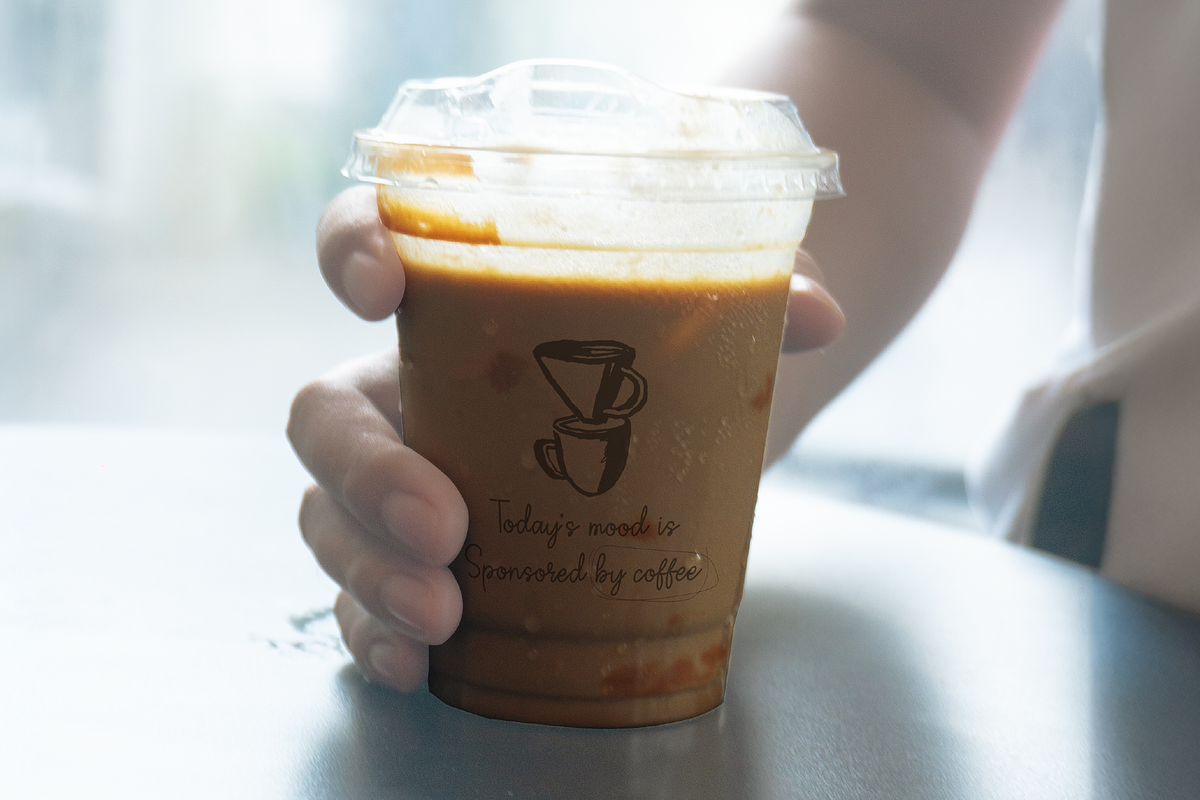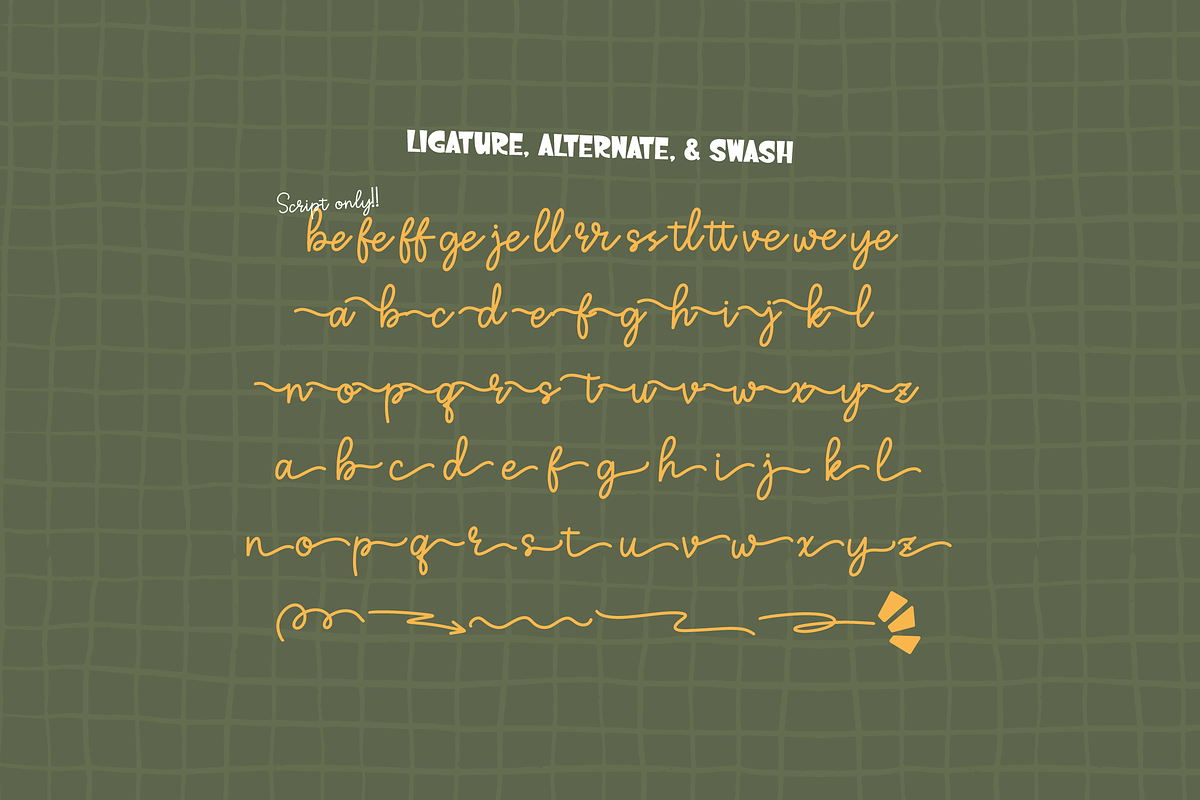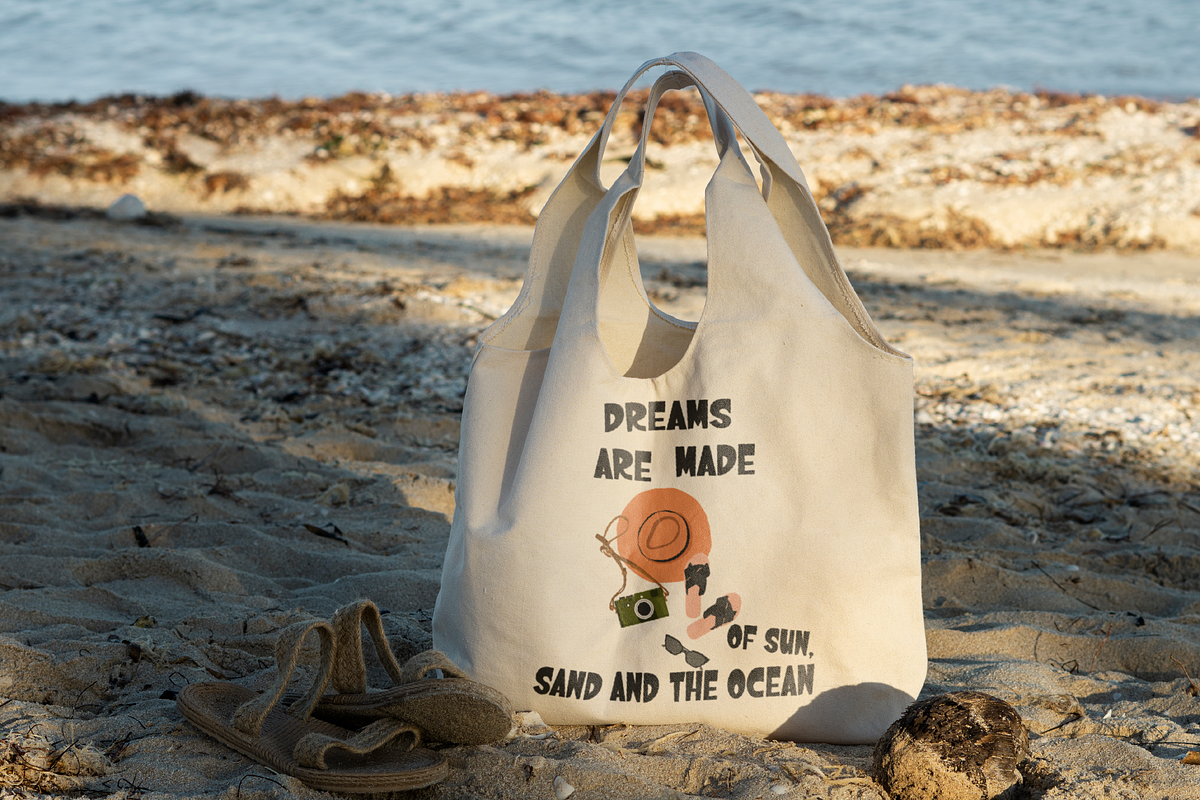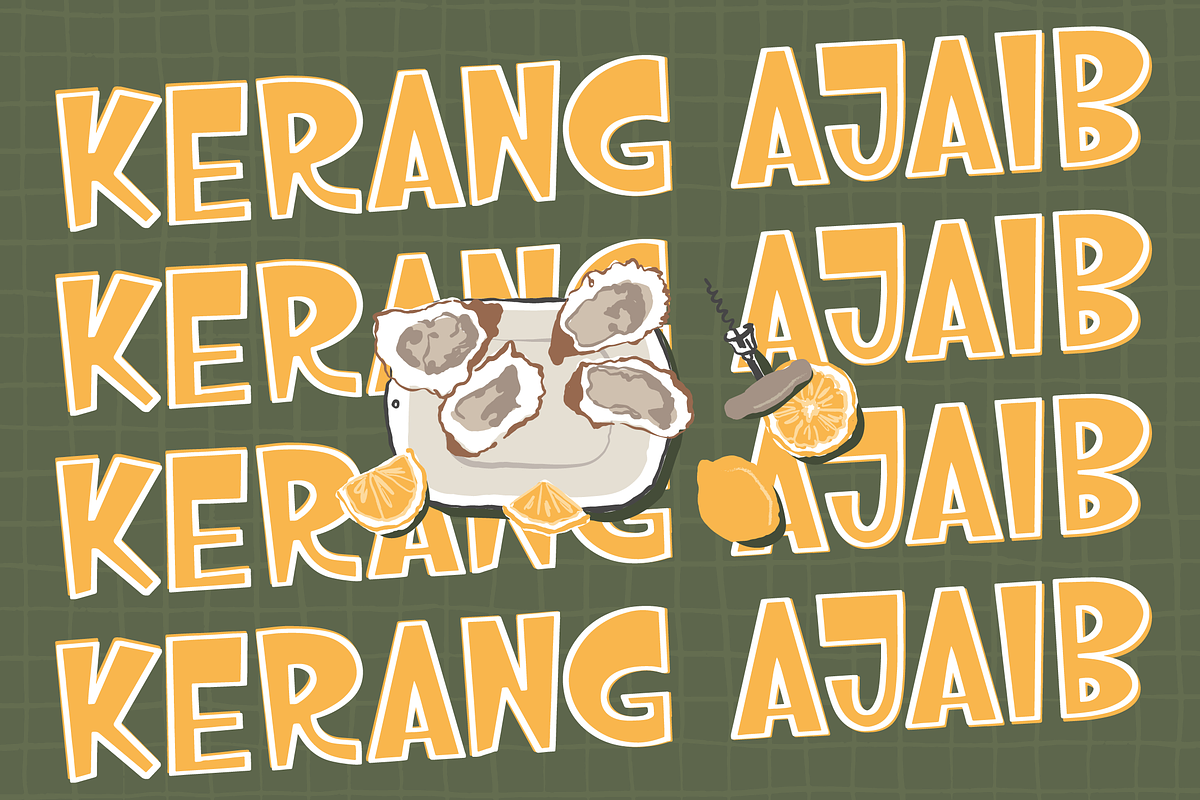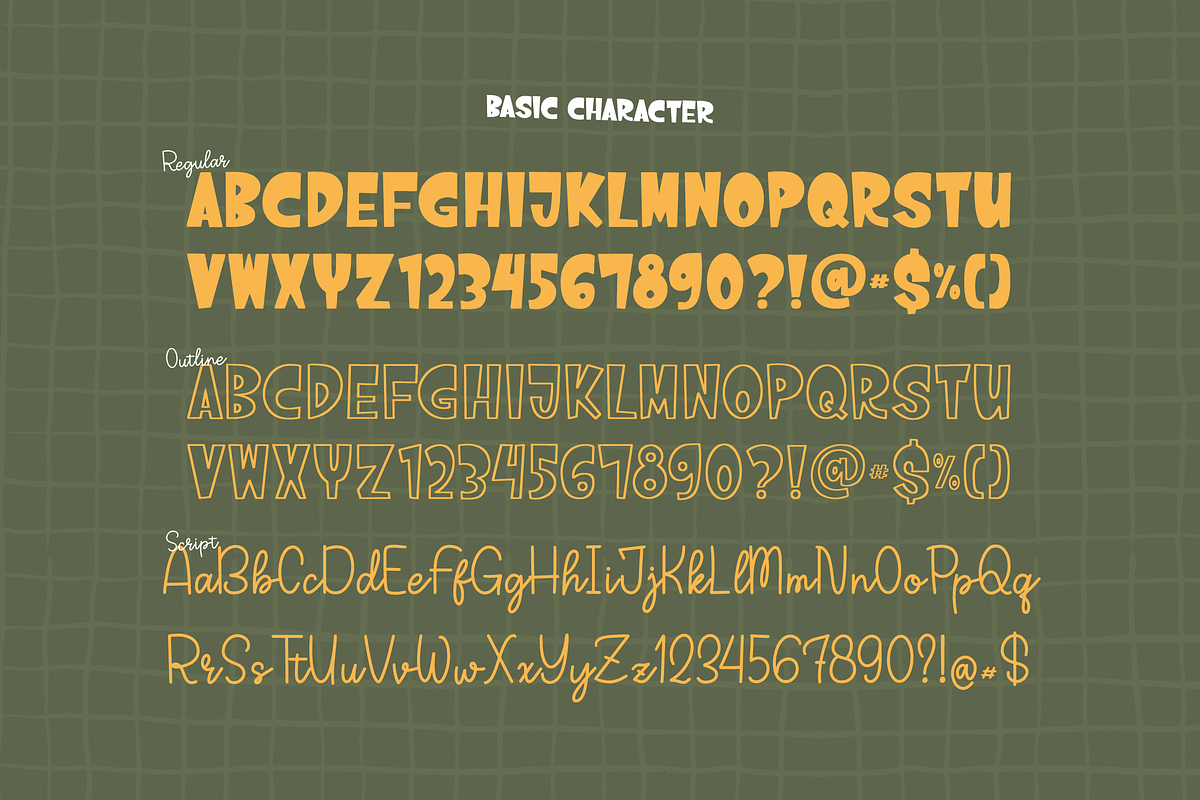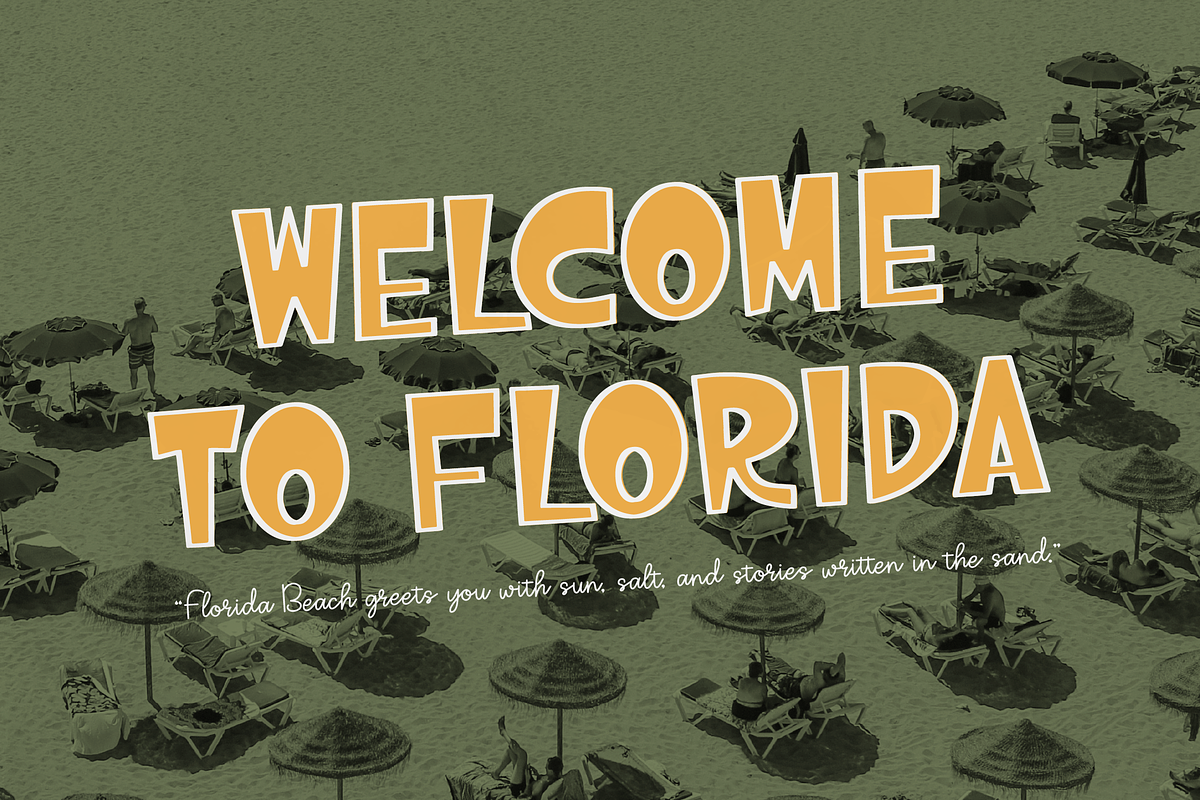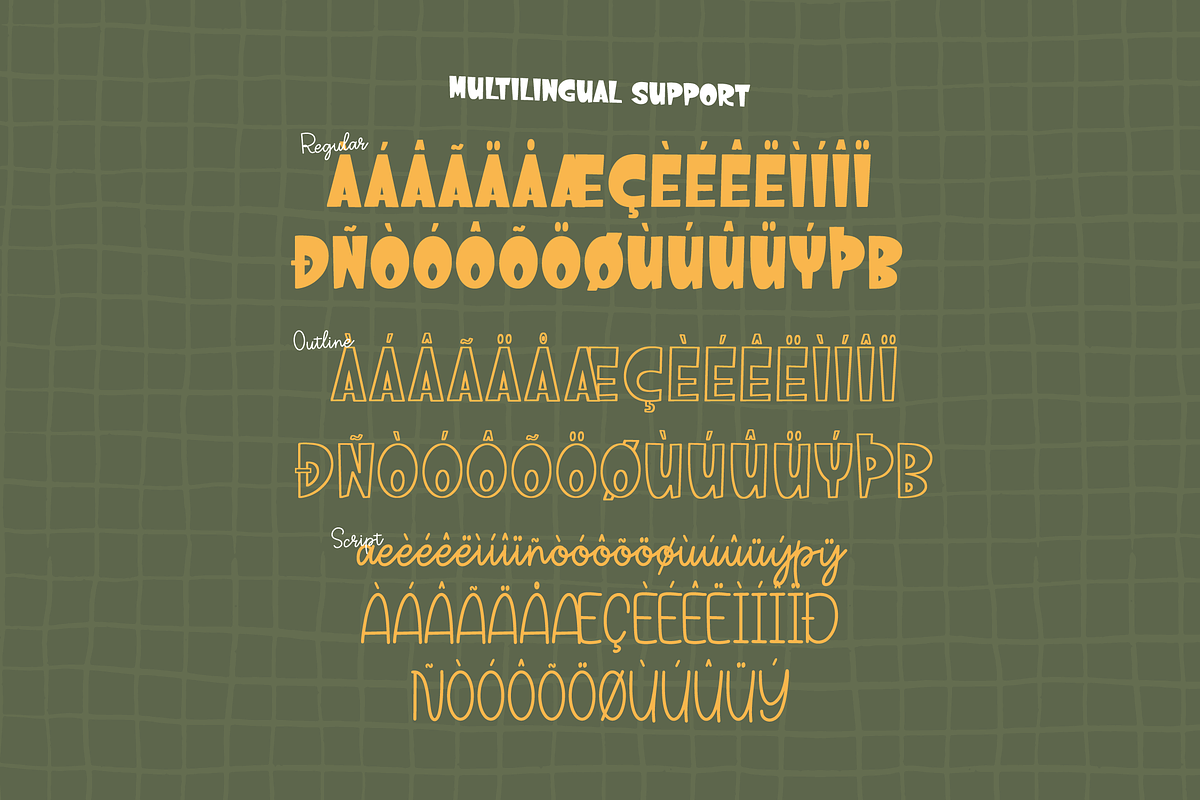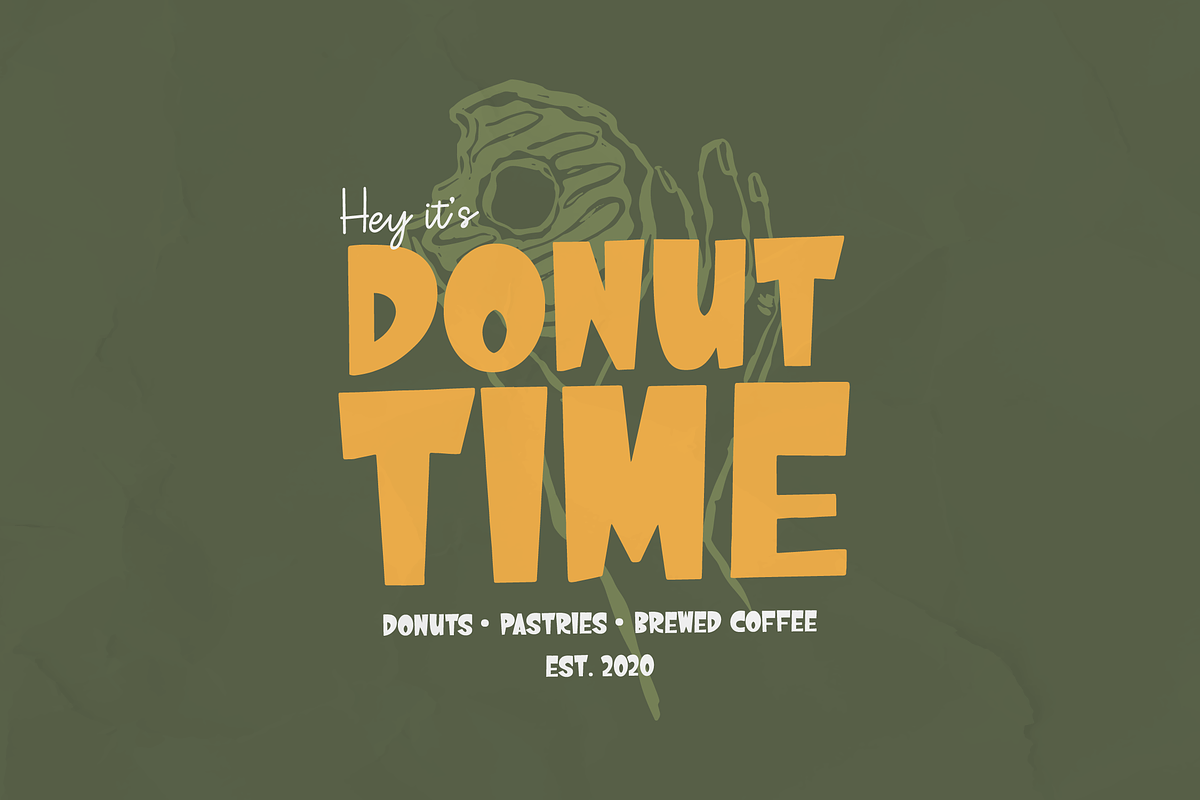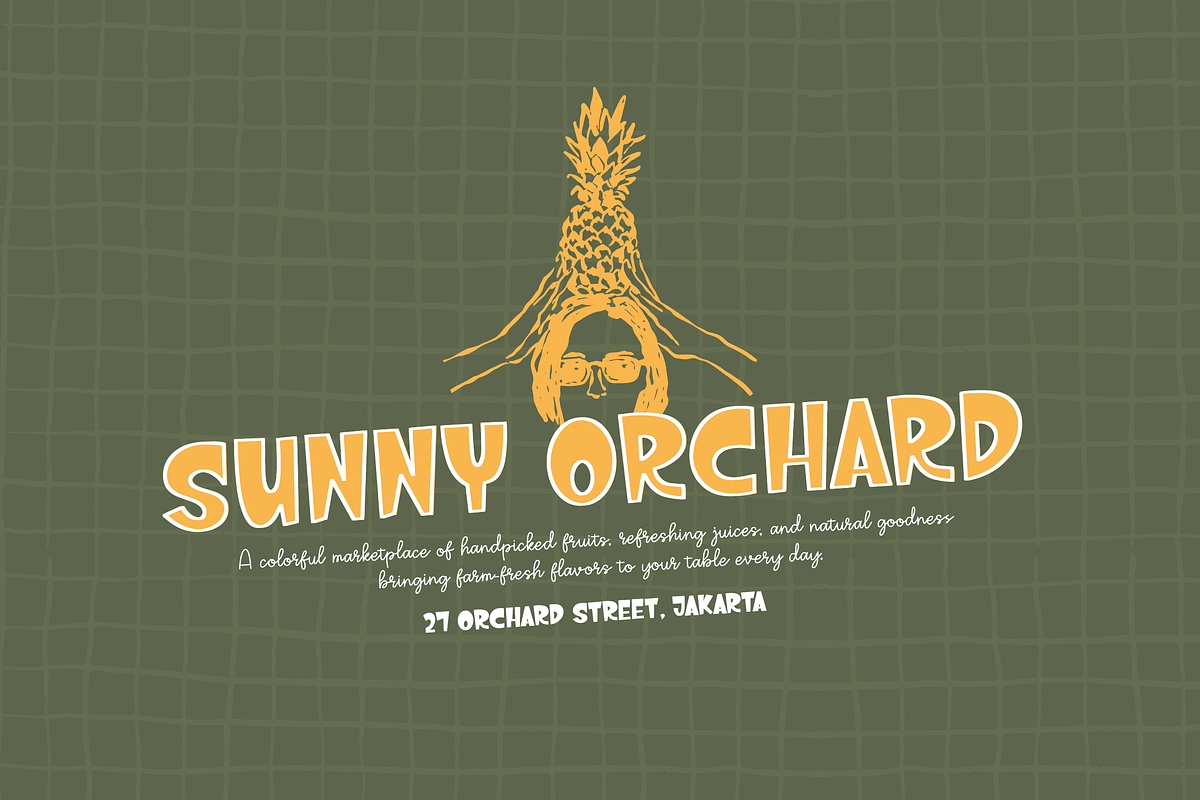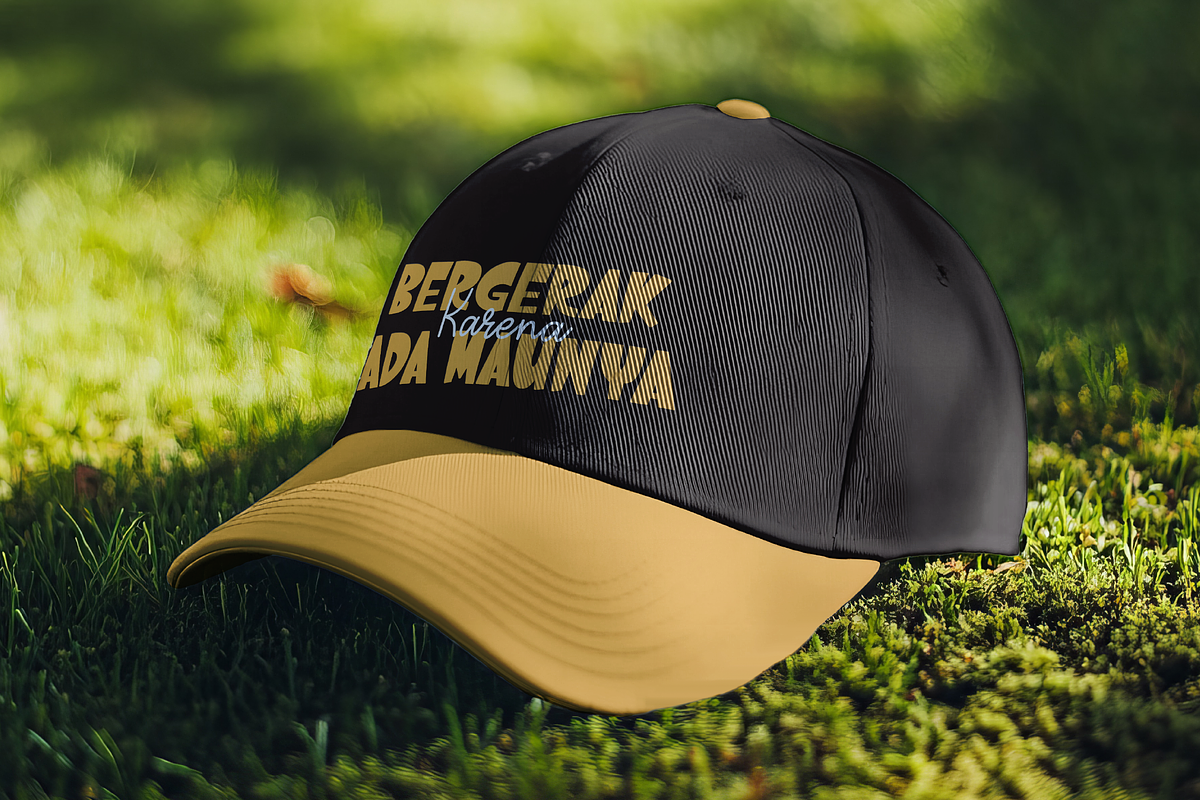
Hoola Summericon | Hand Drawn Duo
Hoola Summericon | Hand Drawn Duo Font, from Gracetypestudio, suitable for any projects such as: logos, branding projects, homeware designs, product packaging, mugs, quotes, posters, shopping bags, t-shirts, book covers, name card, invitation cards, greeting cards, label, photography, watermark, special events, and all your other lovely projects that need a Hand Drawn Duo Font taste.